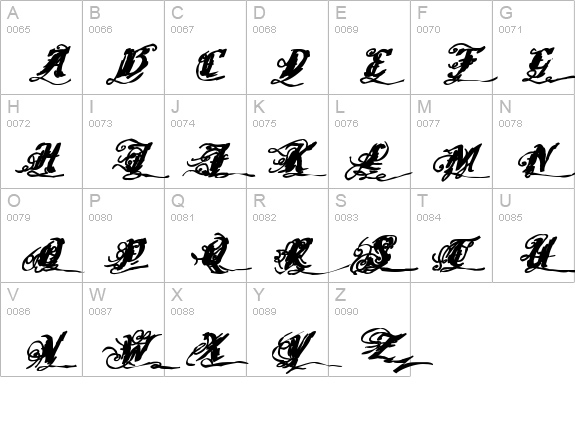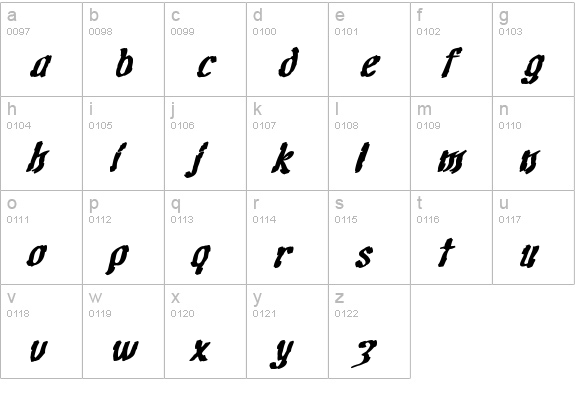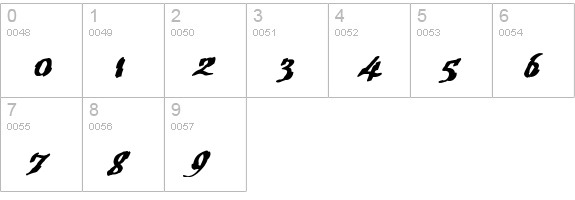
Cretino Ink Font Details
Cretino Ink font is a bold and eye-catching typeface that exudes a sense of creativity and flair. Its unique design features strong, thick lines with a slightly distressed texture, giving it a rugged and edgy look. Perfect for adding a touch of personality to your projects, Cretino Ink font is ideal for posters, logos, headlines, and more. What sets Cretino Ink font apart is not only its striking appearance but also the fact that it is completely free to download. That's right, you can get your hands on this versatile font at no cost at FontsMarket.com. So why wait? Add Cretino Ink font to your design arsenal today and let your creativity shine!